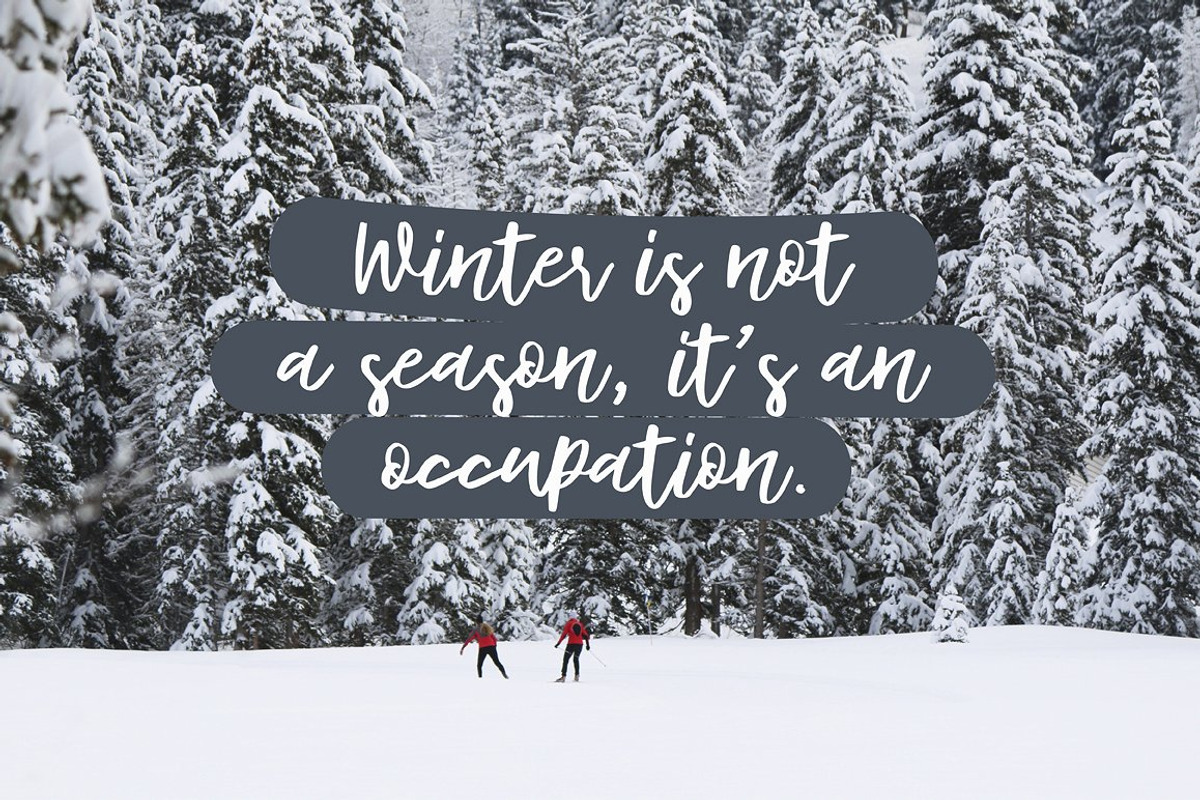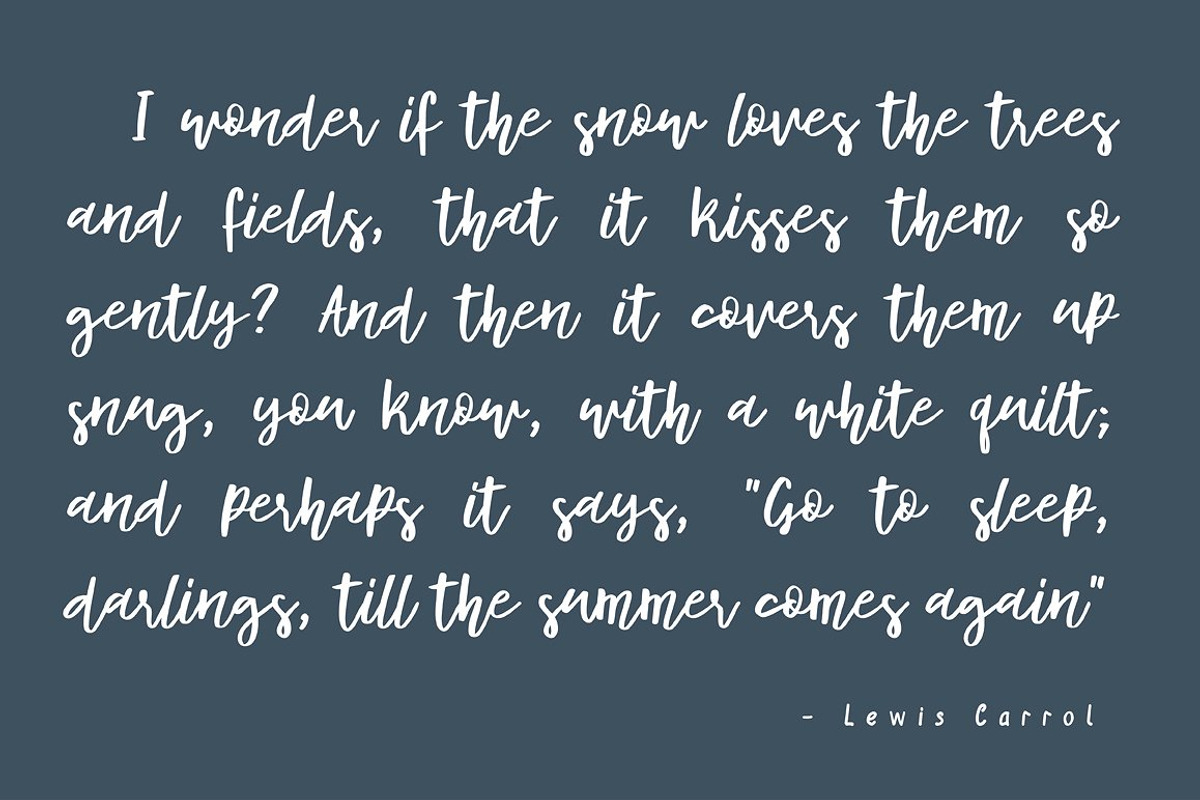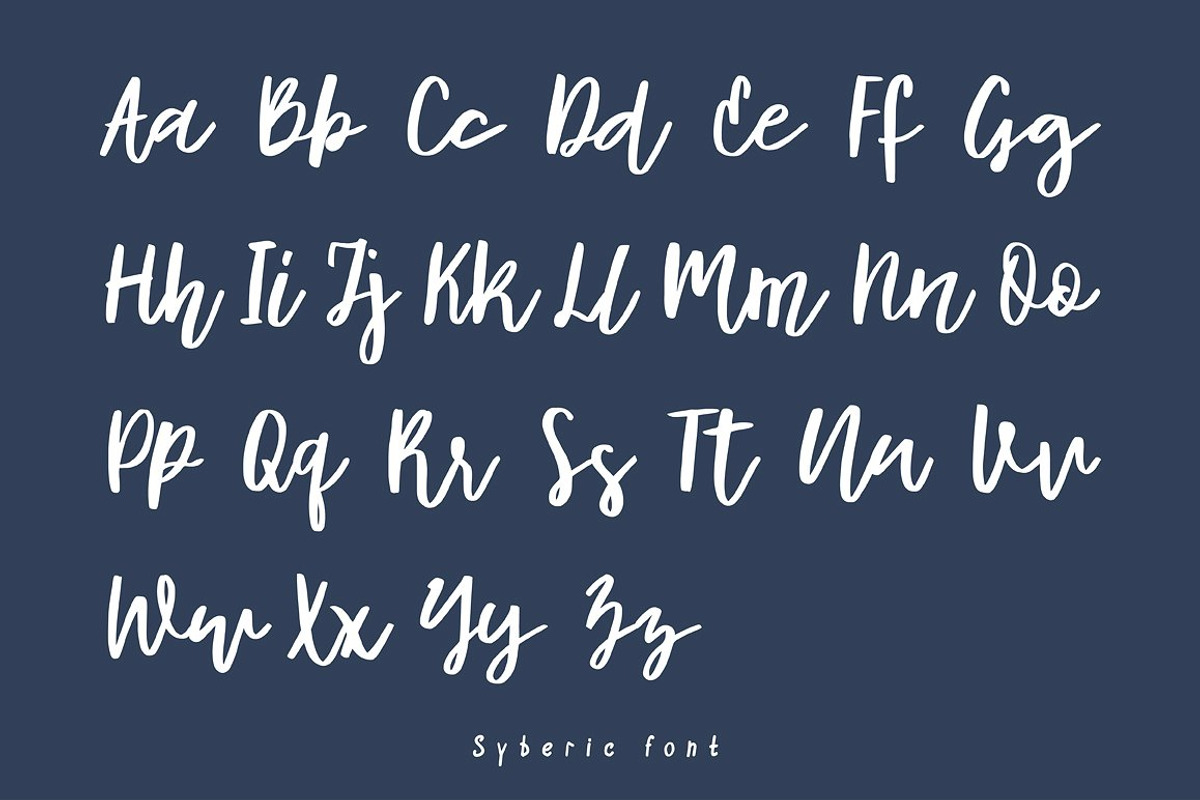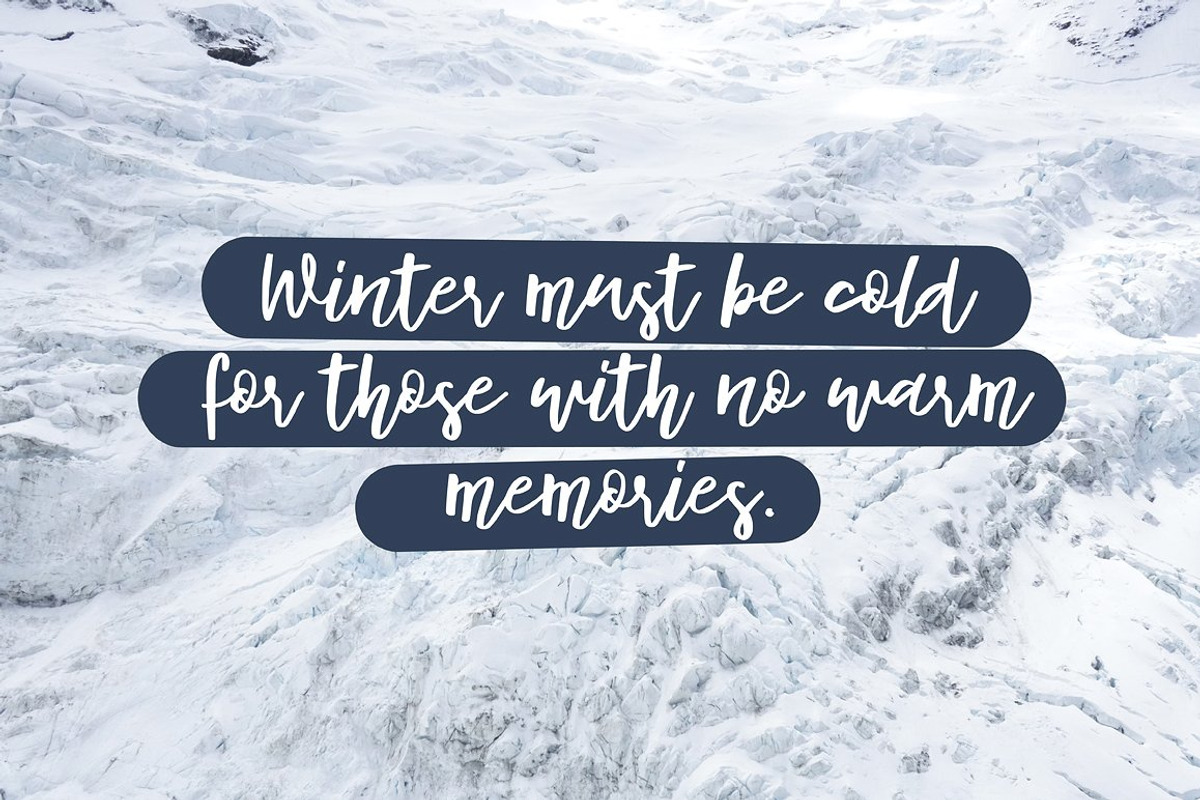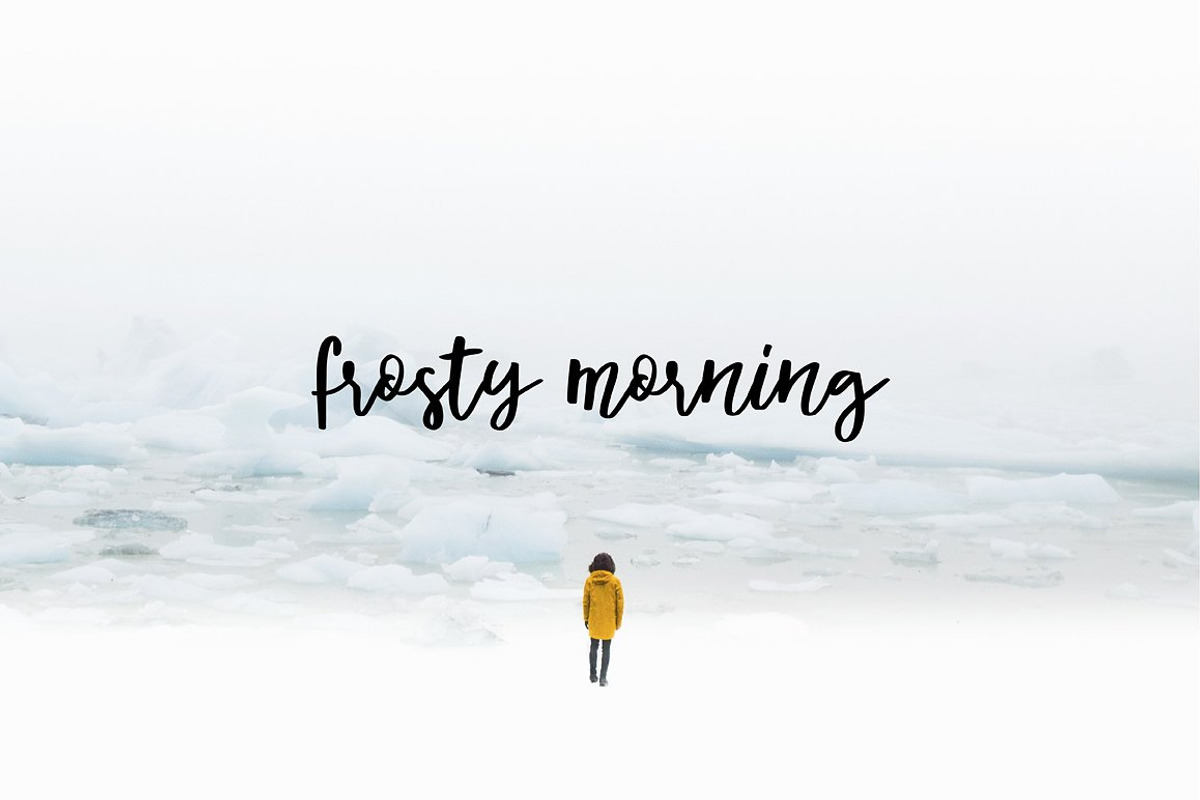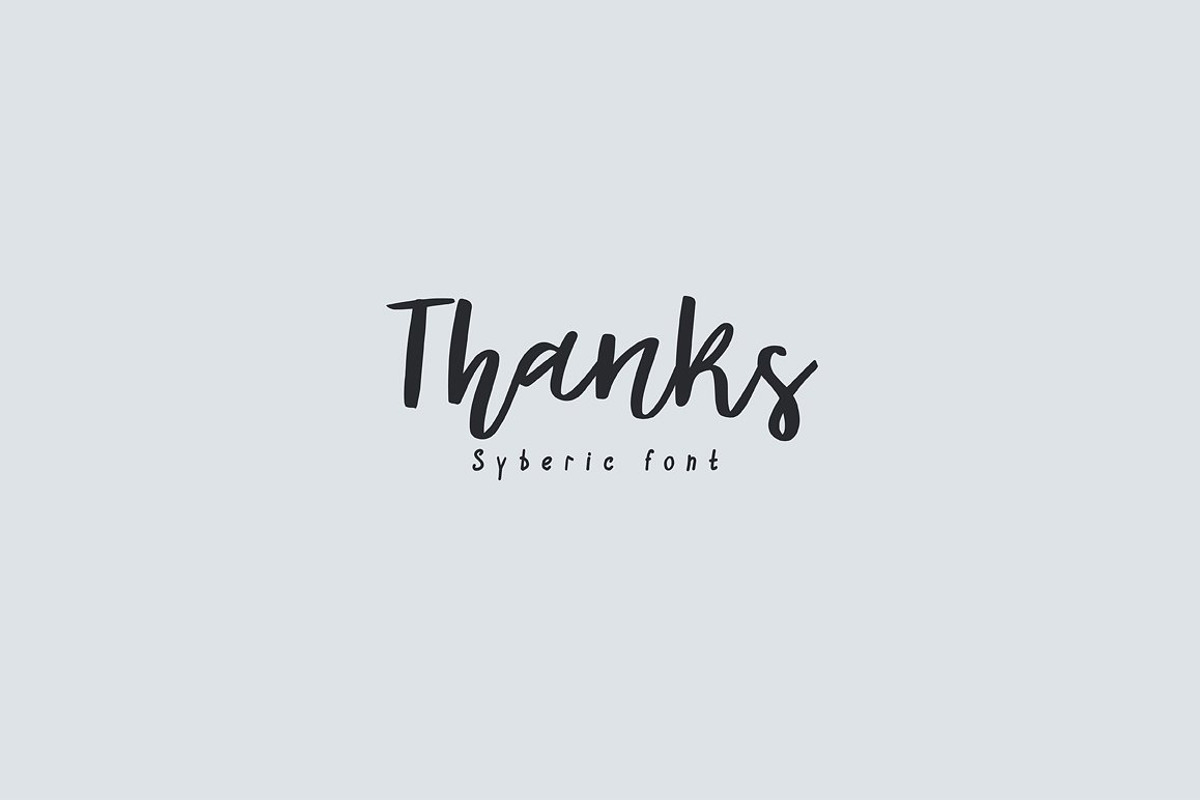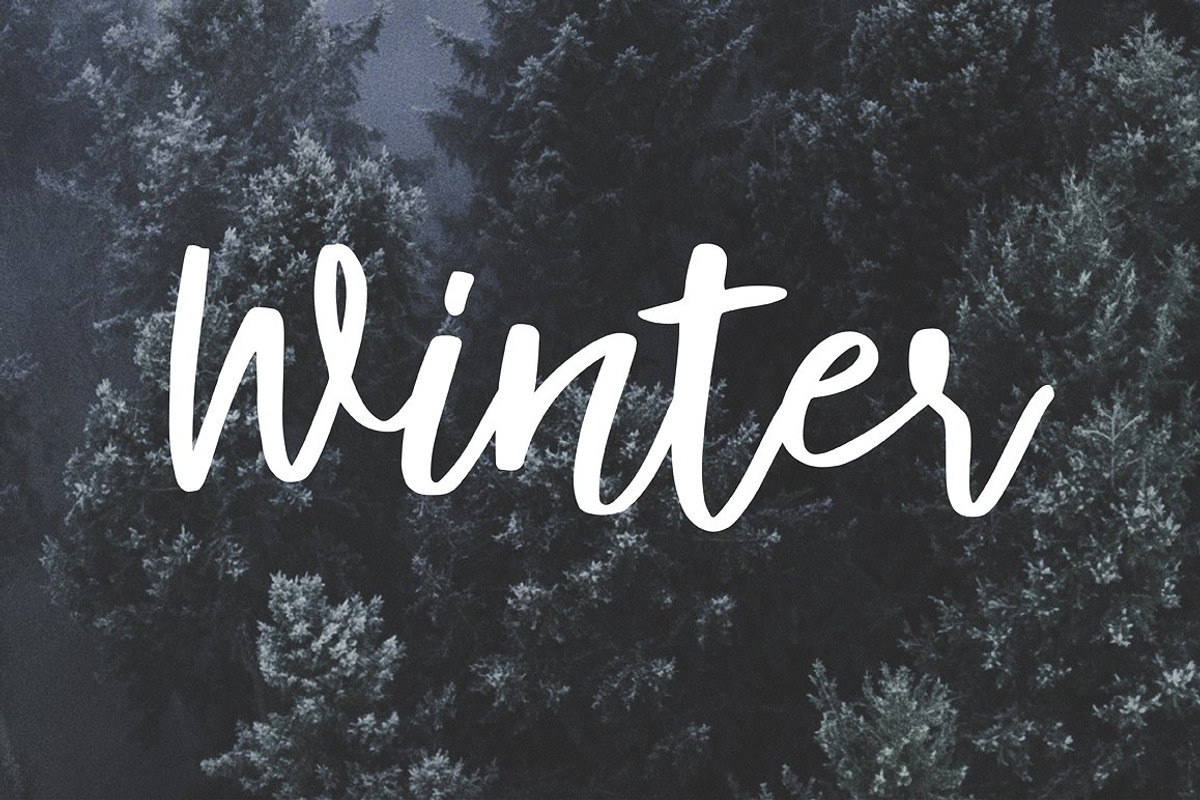
Syberic Script Natural Handdrawn Font
Syberic – A Charming Handwritten Font for Everyday Design Syberic is a stylish handwritten font designed to bring a natural, organic feel to your projects. With its smooth flow and effortless elegance, this font is ideal for:
Invitations & greeting cards
Social media graphics
Website headers & quotes
Why Choose Syberic? Authentic handwritten style – Adds a personal, human touch
Versatile & readable – Perfect for digital & print designs
Why Syberic Script Natural Handdrawn Font is worth a look
Syberic Script Natural Handdrawn Font by Mr.Typeman fits naturally into Branding, posters, packaging, typography.